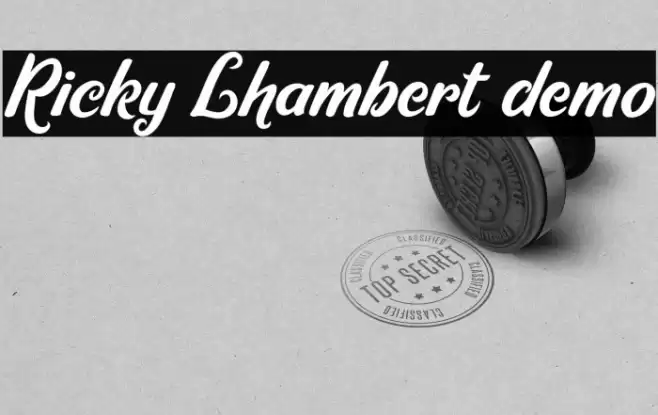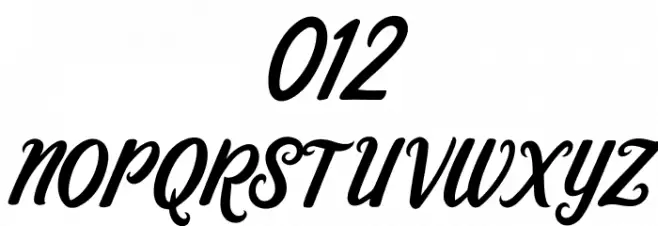
Ricky Lhambert demo Font
Ricky Lhambert demo Description
This font features a bold and flowing script style, characterized by its elegant curves and smooth connections between letters. The uppercase letters are particularly ornate, with sweeping lines that give a sense of movement and grace. The lowercase letters maintain a consistent style, with rounded forms and a slightly playful touch. The numbers are equally stylized, fitting seamlessly with the overall aesthetic. This font's design is both decorative and functional, making it suitable for a variety of creative applications.
A bold, flowing script font with elegant curves and smooth connections from Uncategorized fonts.
- Proposed Projects: Ideal for wedding invitations, greeting cards, branding, and logo design.
- Use Case: Logos, Headlines, Invitations